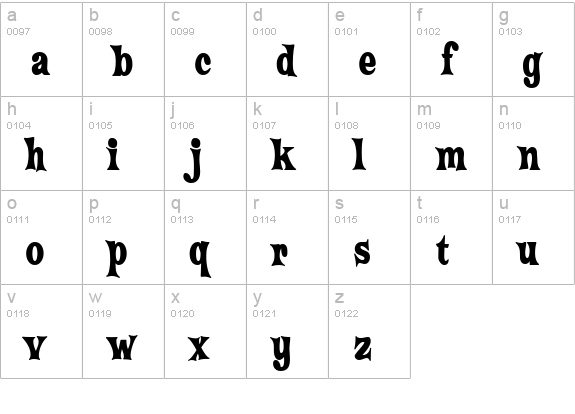
Crazy HaroldCondensed Flare font is a bold and dynamic typeface that exudes energy and personality. With its unique blend of sharp angles and exaggerated curves, this font is perfect for making a statement in any design project. Whether you're looking to add a touch of edginess to your branding or create eye-catching headlines, Crazy HaroldCondensed Flare font is sure to grab attention. Best of all, this font is available for free download at FontsMarket.com. Simply visit the website to get your hands on this striking typeface and start using it in your projects today. Don't miss out on the opportunity to add a touch of flair to your designs with Crazy HaroldCondensed Flare font.